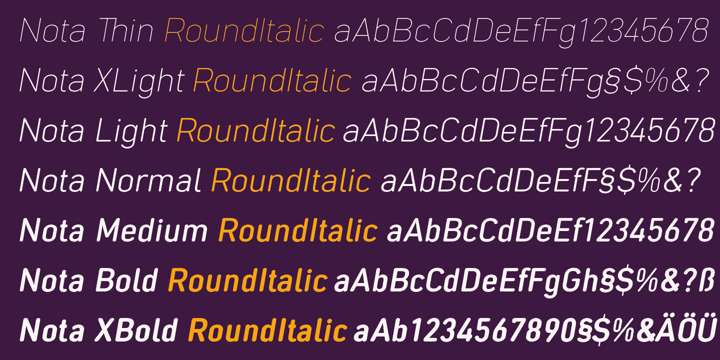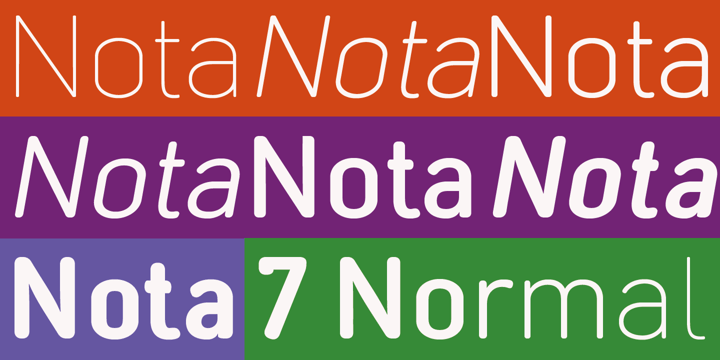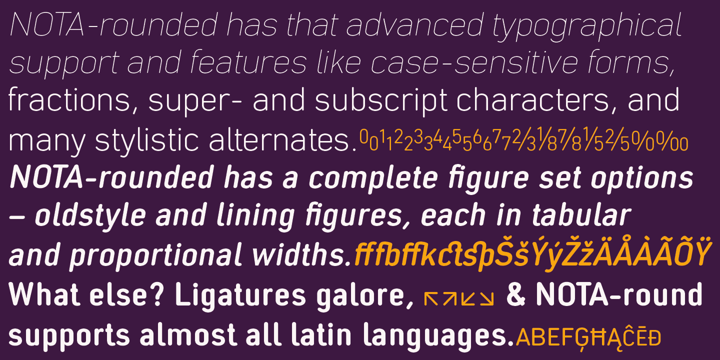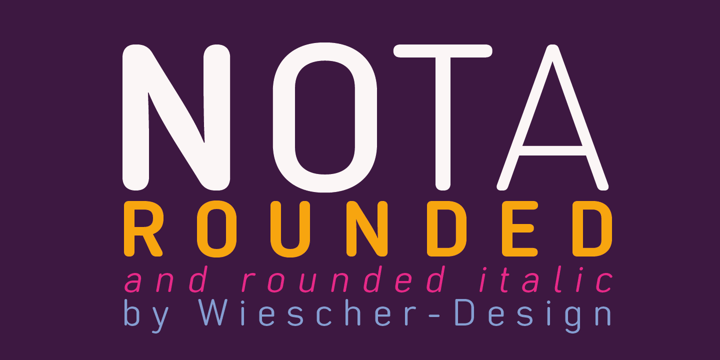
About Nota Rounded Font Family
»NOTA-rounded« is the rounded version of »NOTA«, the new, narrow, technical font– designed by Gert Wiescher in 2014 and 2015 – has 7 weights with corresponding oblique cuts. The »NOTA« families are well suited for advertising, logo, billboards, small text, signage, branding, packaging, editorial, posters, web and screen design. The OpenType families are all set for professional typography with an extended character set of over 700 glyphs and extensive kerning. It supports more than 40 Central- and Eastern-European as well as many Western languages. Ligatures, different figures, fractions, currency symbols and small caps can be found in all cuts. Enjoy!